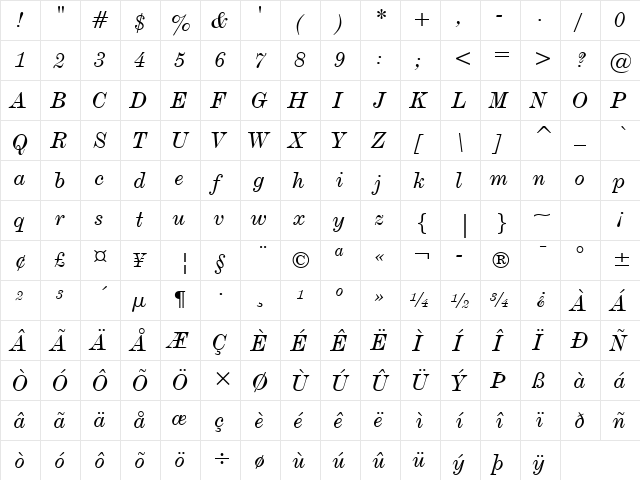
DeVinne Txt BT Italic
Design Context for DeVinne Txt BT Typeface
DeVinne Txt BT takes a measured approach to typography — its balanced proportions and neutral character make it a reliable workhorse for both digital and print work. The slanted form adds forward momentum and visual energy.